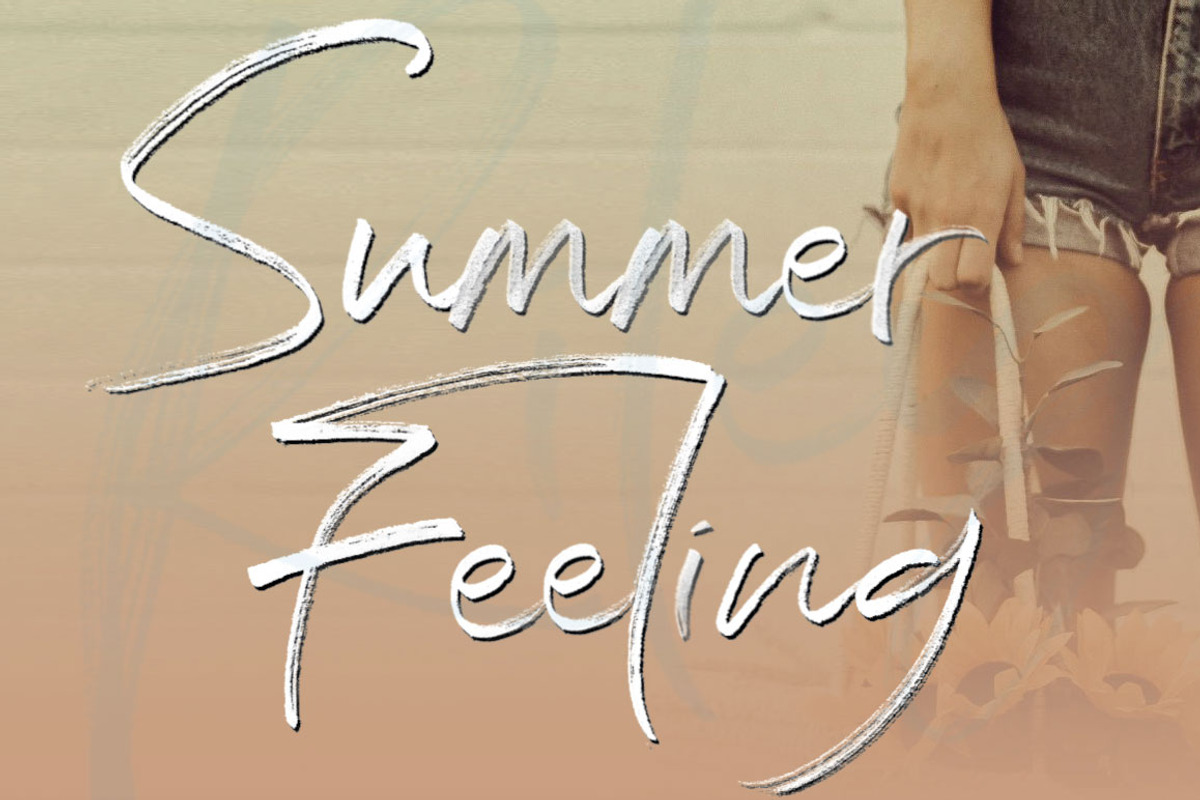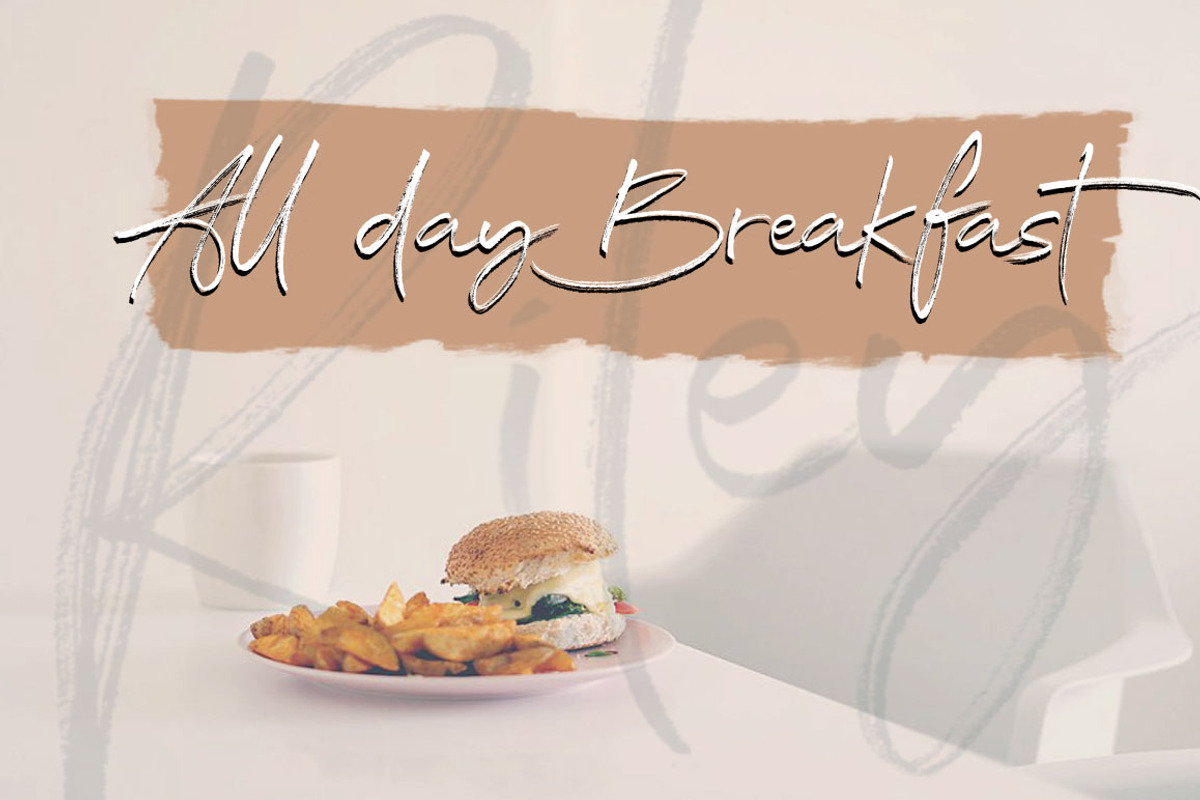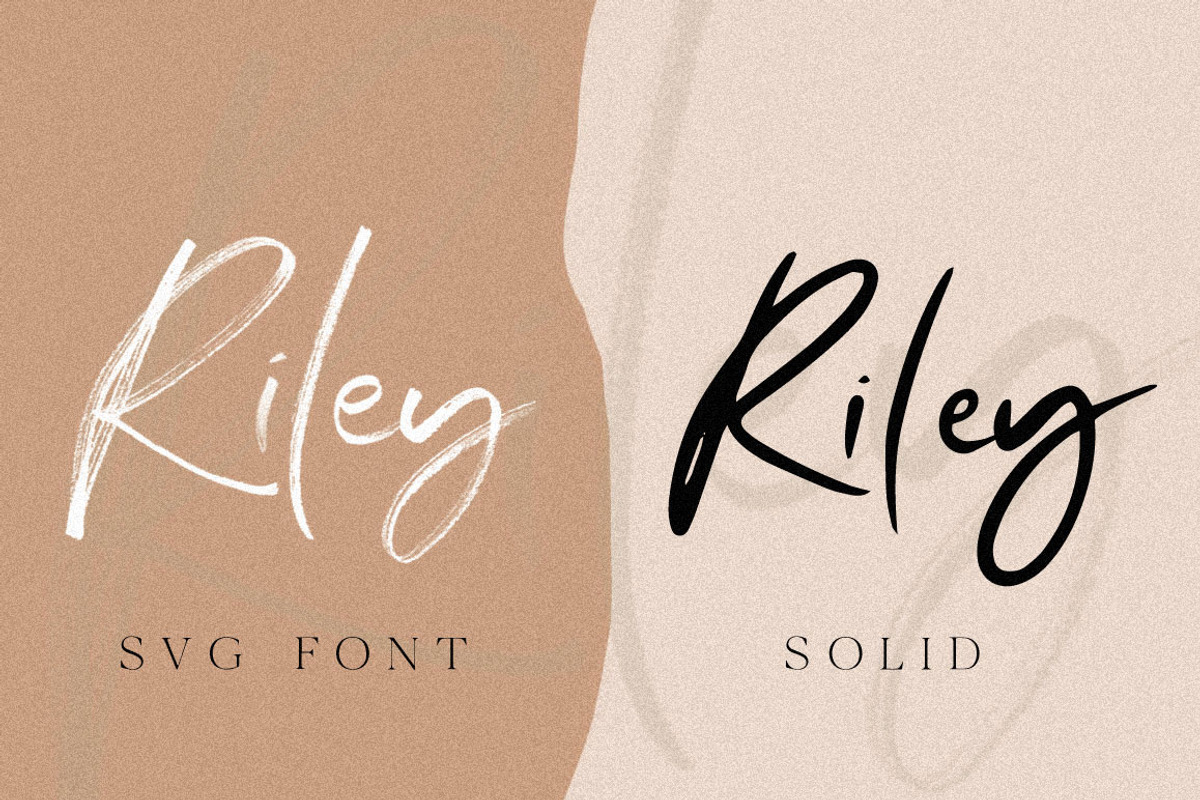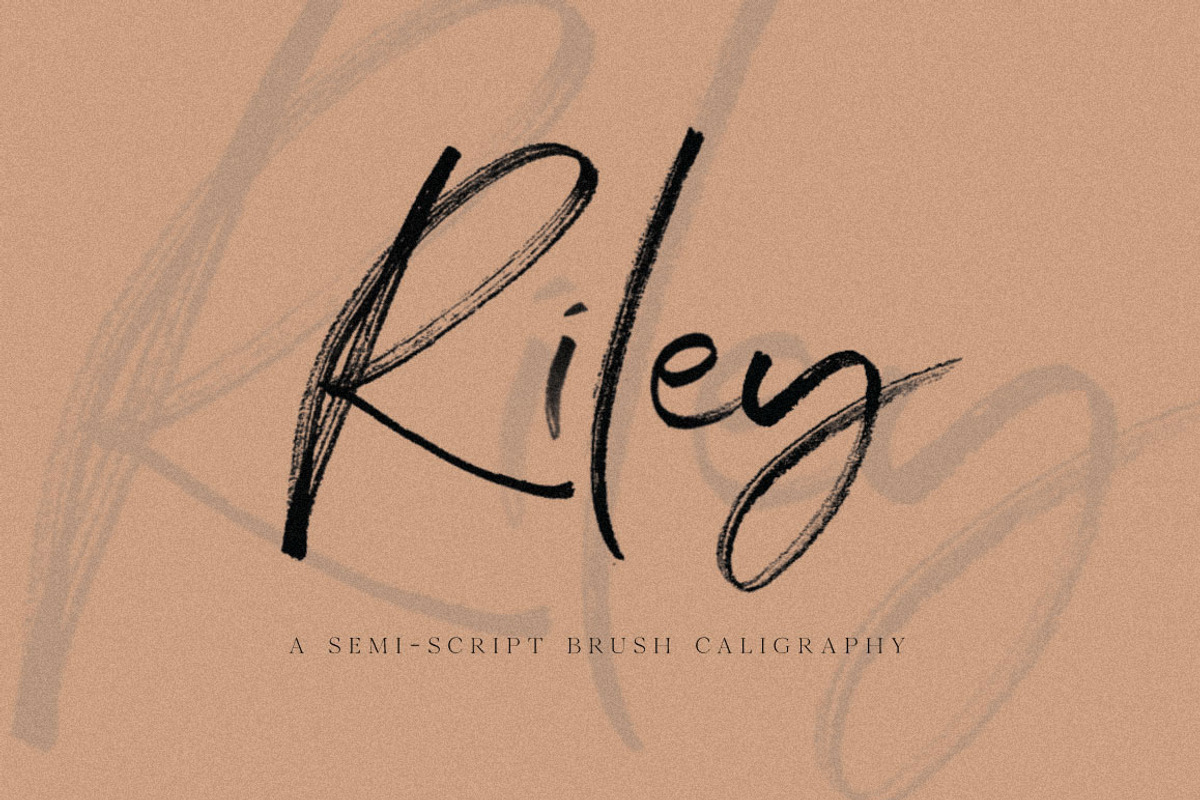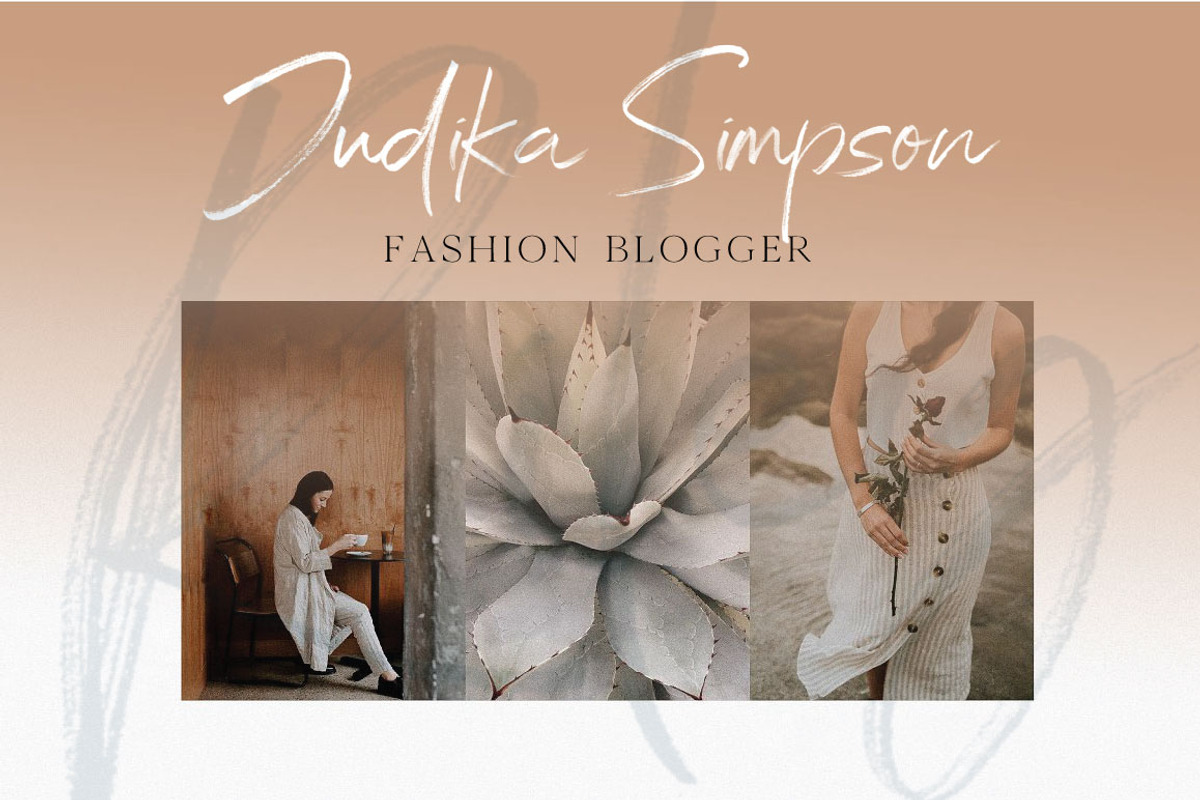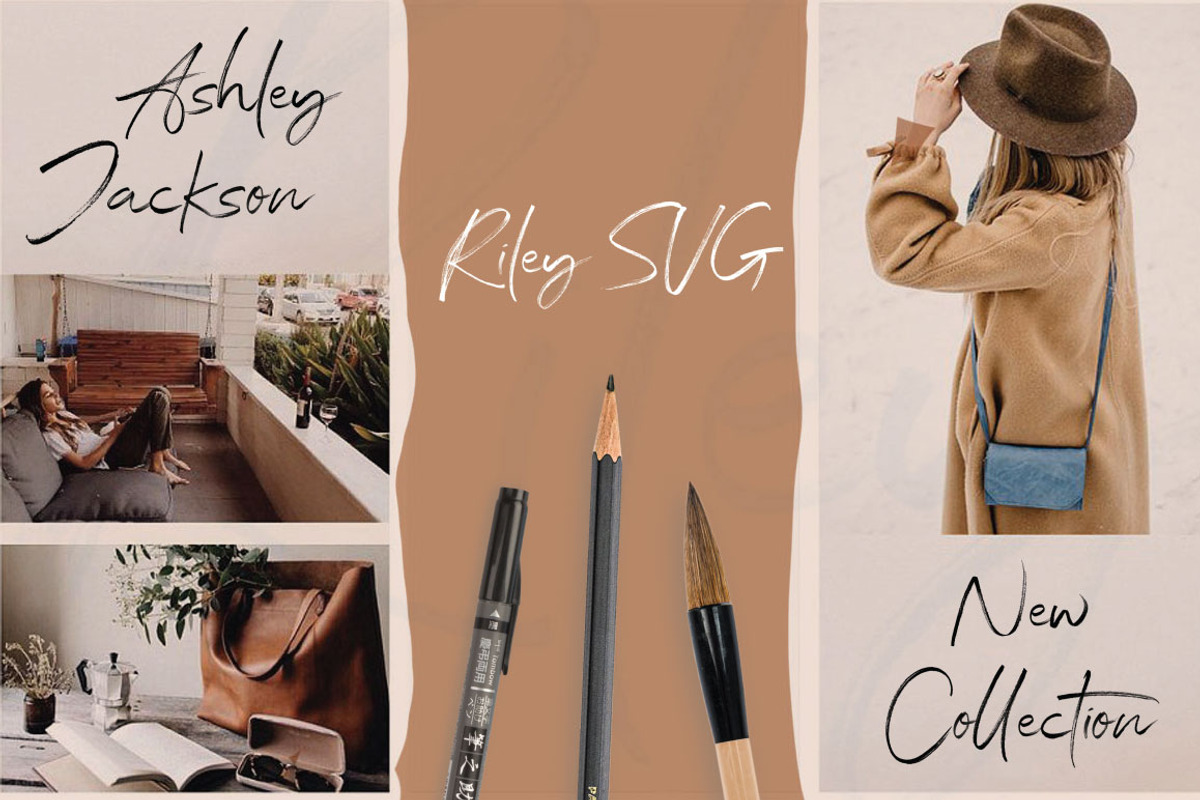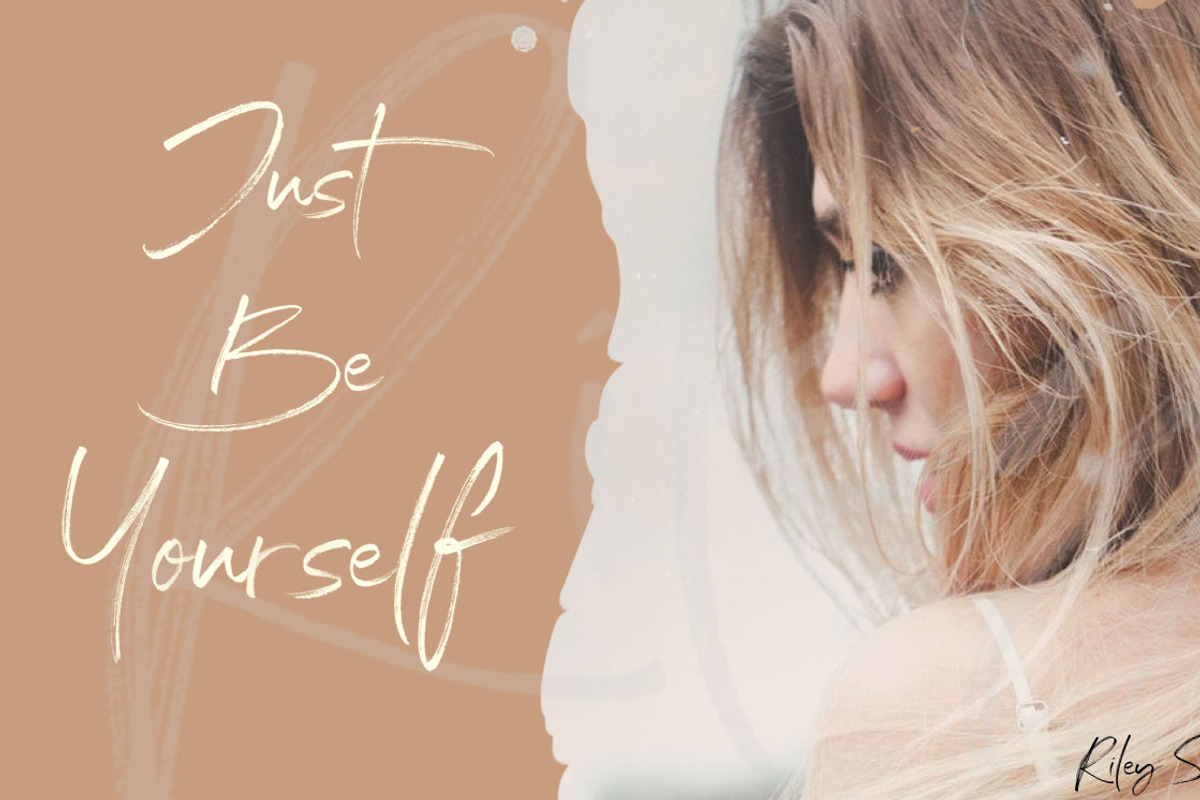
Riley SVG & Font
Riley was inspired by my first born. ( it's a boy )
I created this font all by my own hand. Scanned in a high resolution and love. Mostly love :)
It's come with Swashes and Solid version. The swashes come as a font and PSD file.